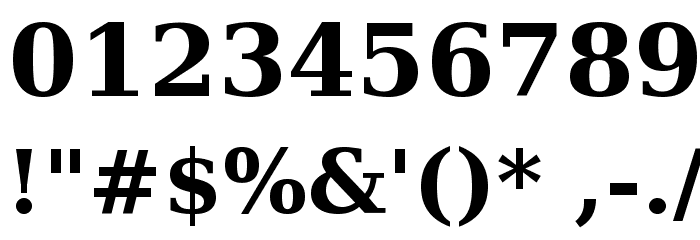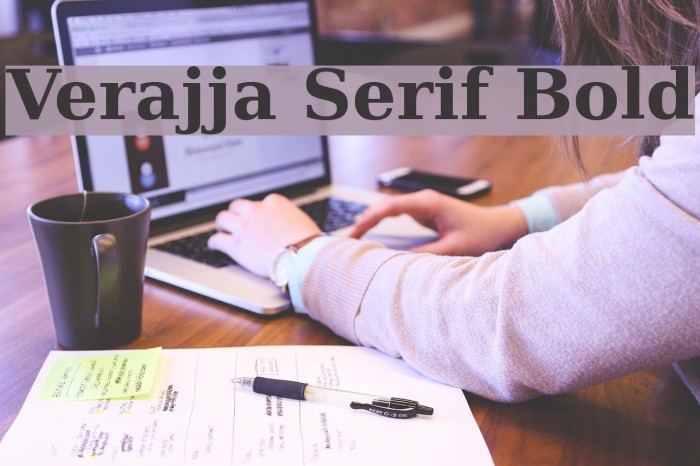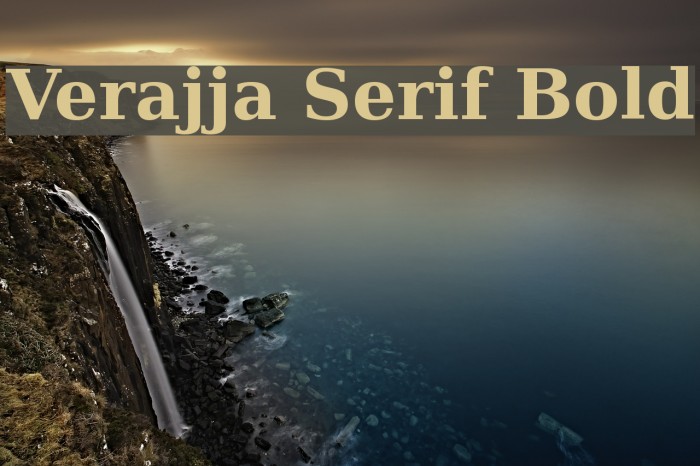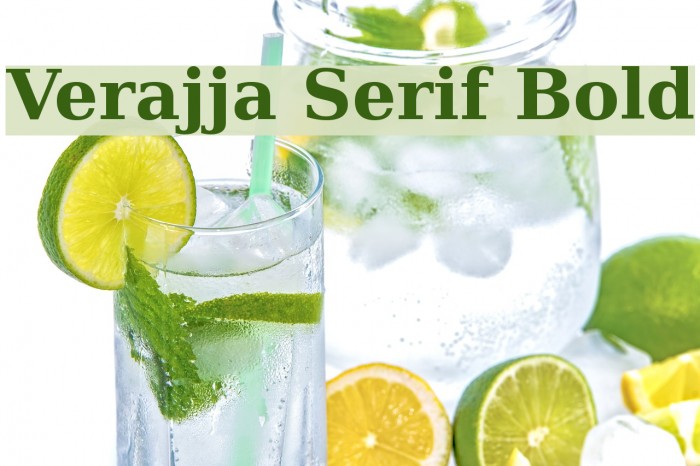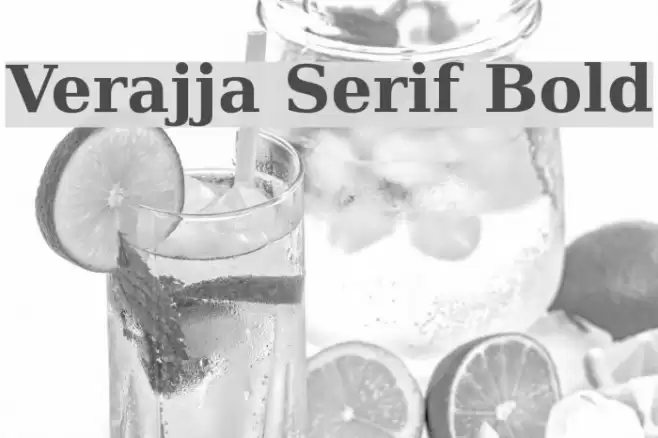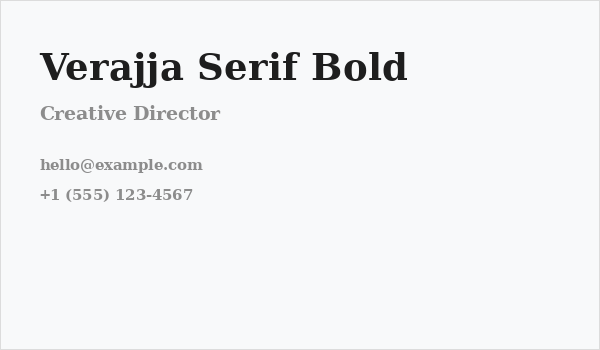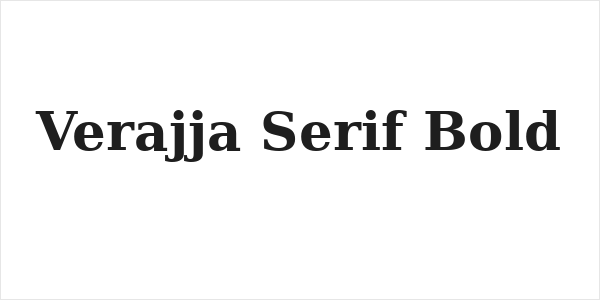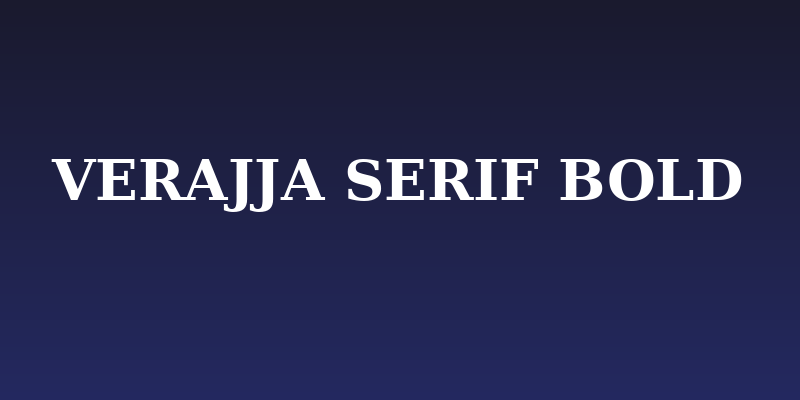
Verajja Serif Bold Font
Verajja Serif Bold Description
This font is a bold serif typeface characterized by its strong, authoritative presence. The serifs are pronounced, providing a classic and timeless feel. The uppercase letters are tall and commanding, while the lowercase letters maintain a balanced and readable form. The numerals are clear and distinct, ensuring legibility in various contexts. Special characters are well-defined, complementing the overall design. This font's bold weight and traditional serif style make it suitable for projects that require a touch of elegance and sophistication.
| Proposed Projects | Ideal for book covers, editorial headlines, branding, and formal invitations. |